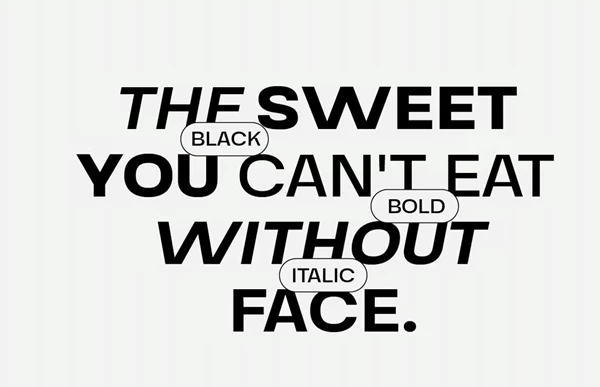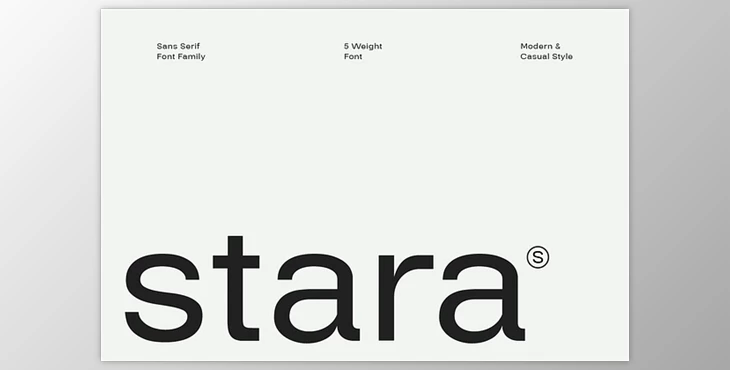
Stara - Sans Serif Font Family: Introducing Stara Sans Serif Font, a sophisticated font family that seamlessly blends simplicity with elegance. With its clean design and balanced proportions, Stara Sans Serif exudes a modern and professional feel, making it ideal for a wide range of design projects.
Each letter is meticulously crafted to ensure optimal clarity and legibility, ensuring that your message is communicated effectively. Whether used in logos, titles, paragraphs, or digital displays, Stara Sans Serif adds a fresh and elegant touch to any design.
With its versatility and timeless appeal, Stara Sans Serif Font is a valuable asset for designers looking to elevate their projects with a touch of sophistication and professionalism. Whether you're creating branding materials, marketing collateral, or digital content, Stara Sans Serif Font delivers exceptional results, helping your designs stand out with clarity and style.